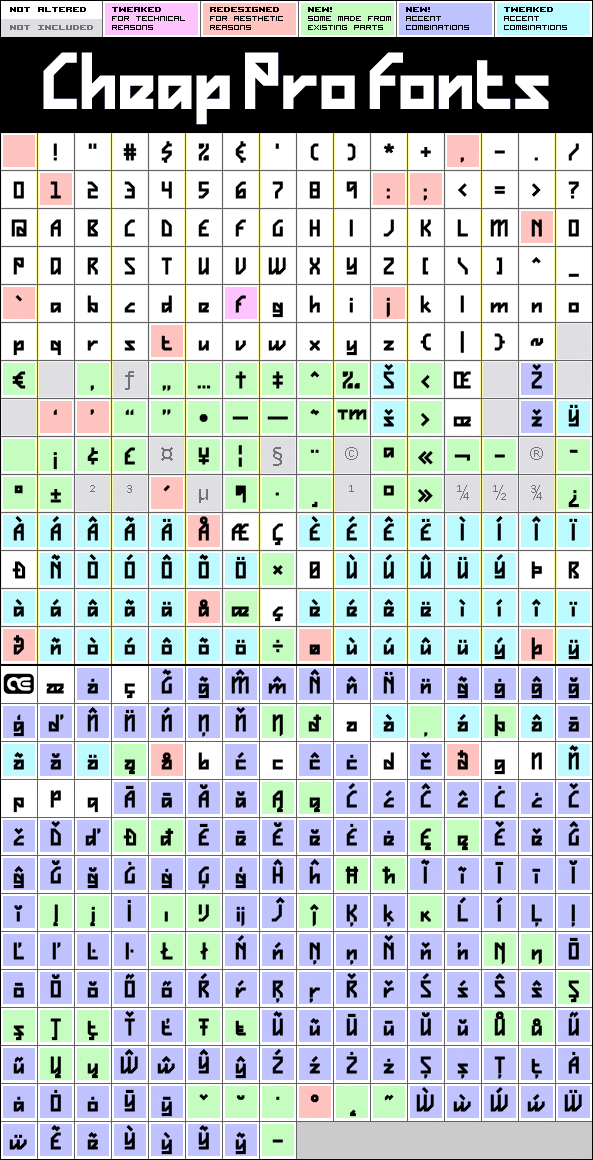
A very angular font, not one curve in sight - it's hip to be square! The font includes quite a few alternate letterforms, which I've also made available in combinations with diacritics. These alternates are available via your programs' glyph palette or using the OpenType functions "Stylistic Alternates" and/or "Stylistic Sets ss01-ss04".
Vigilance BRK Pro is a professionally reworked font that contains an extended character set for setting text in 65 languages requiring more than the basic A-Z!